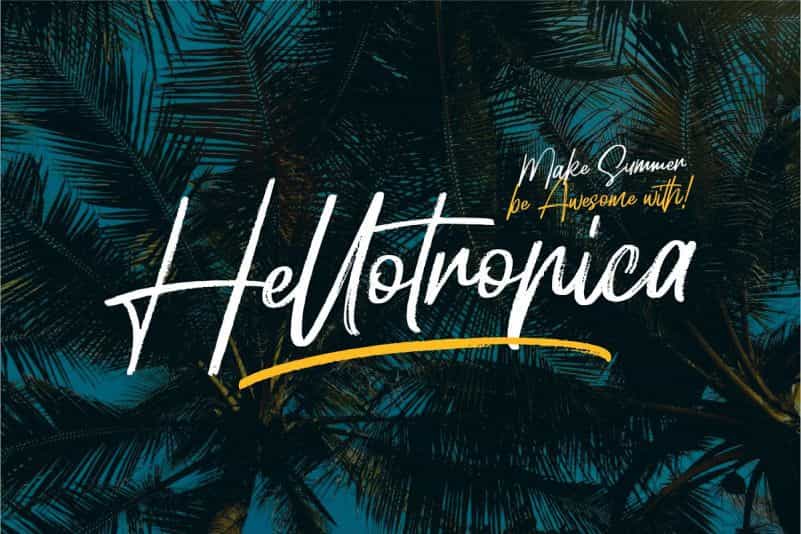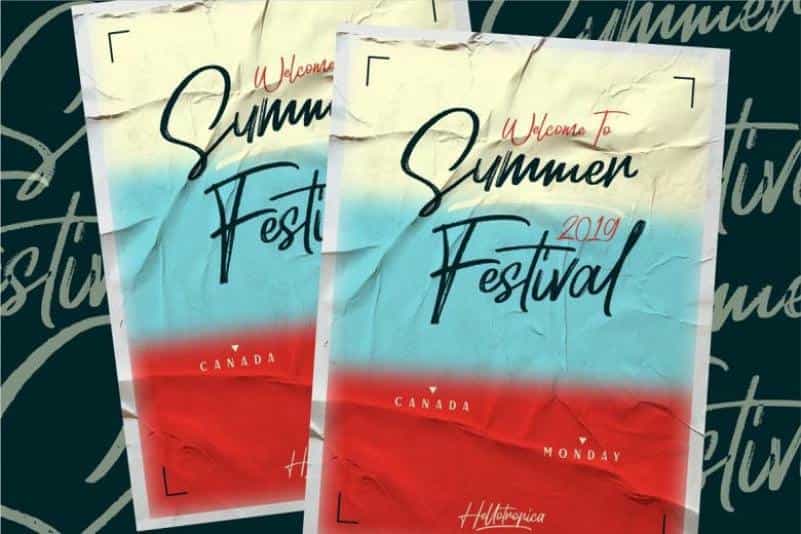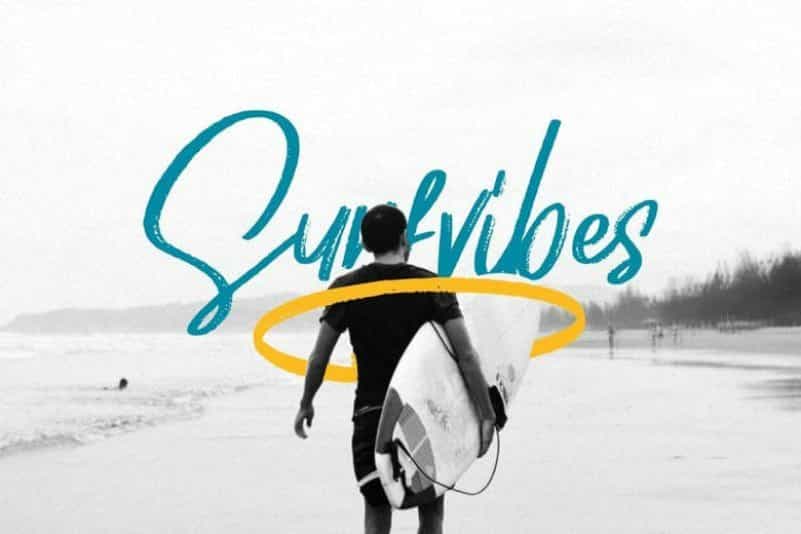
Introducing Hellotropica Brush Font! The font is carefully drawn, the details are high and it flows smoothly so that you can use it for a logo typeface or any other kind of advertisement purpose.